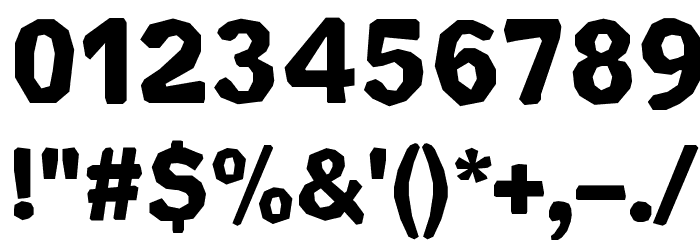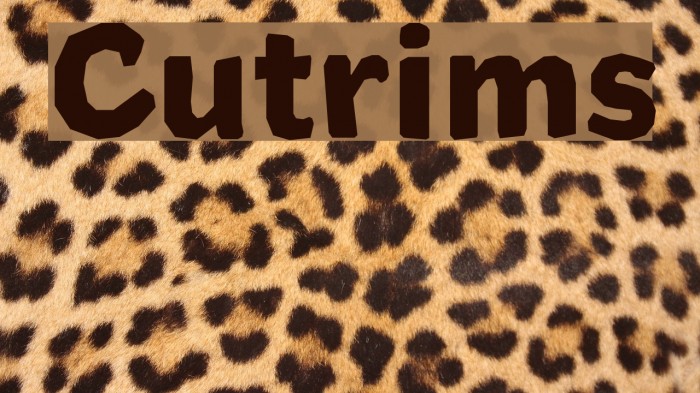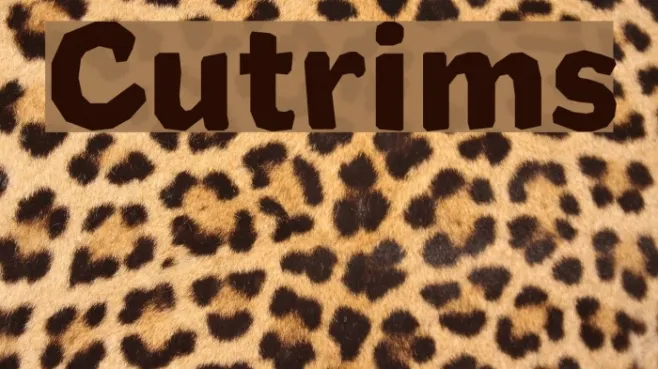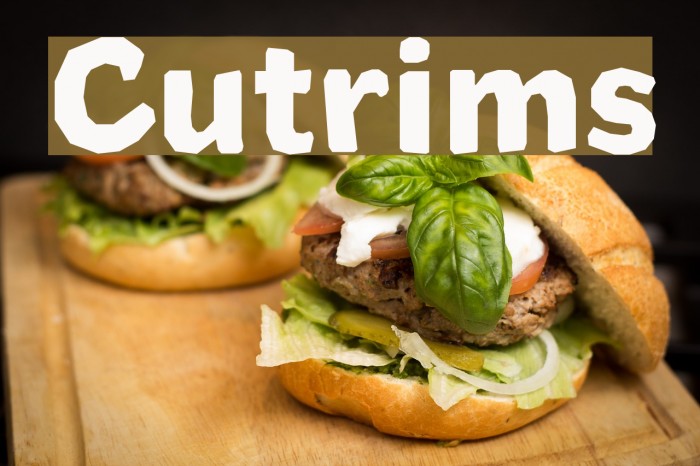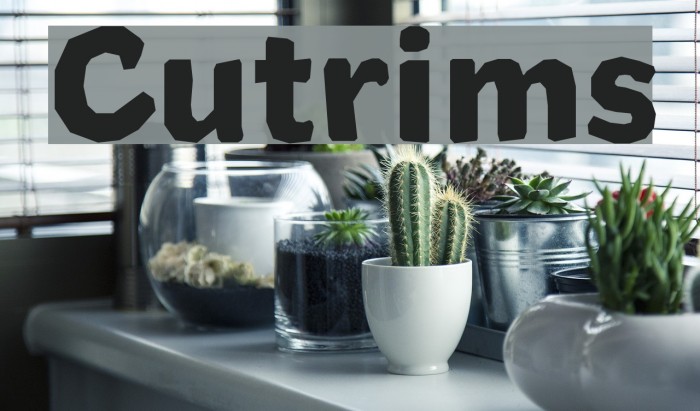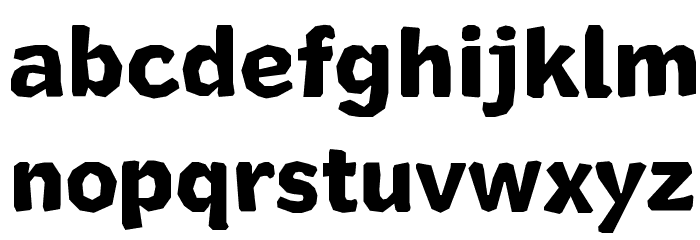
Cutrims Font
This font features bold, chunky letters with a playful and slightly irregular design. The characters have a hand-drawn feel, with uneven edges and a sense of movement. The uppercase and lowercase letters maintain a consistent style, while the numbers and special characters complement the overall look. The font's boldness makes it stand out, ideal for attention-grabbing designs. Its unique style adds a touch of creativity and fun, making it suitable for projects that require a distinctive and informal appearance.
A bold, playful font with a hand-drawn, irregular style.
• Proposed Projects: Ideal for children's books, playful branding, posters, and creative invitations.
• Category: Decorative/Display
• Bold: Yes
• Italic: No
• Weight: Bold
• Width: Normal
• Character Spacing: Normal
• Contrast: Low
• Overall Style: Playful, Creative
• Use Case: Headlines, Logos, Posters